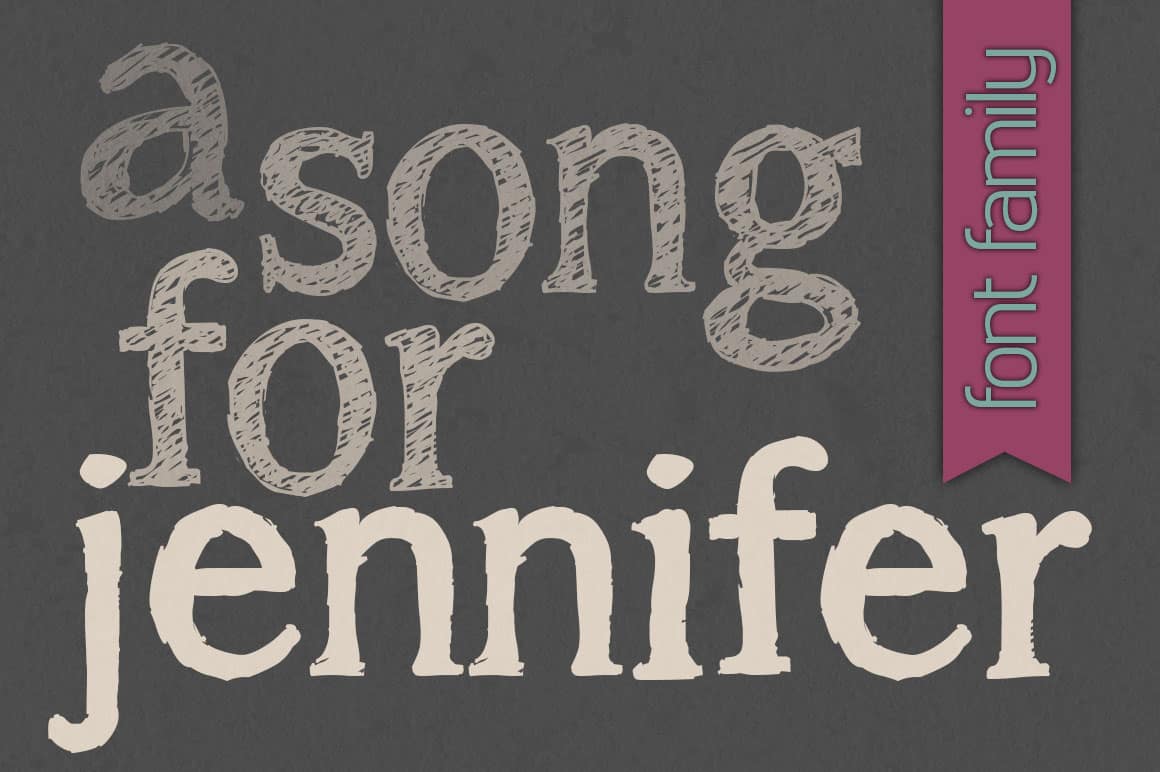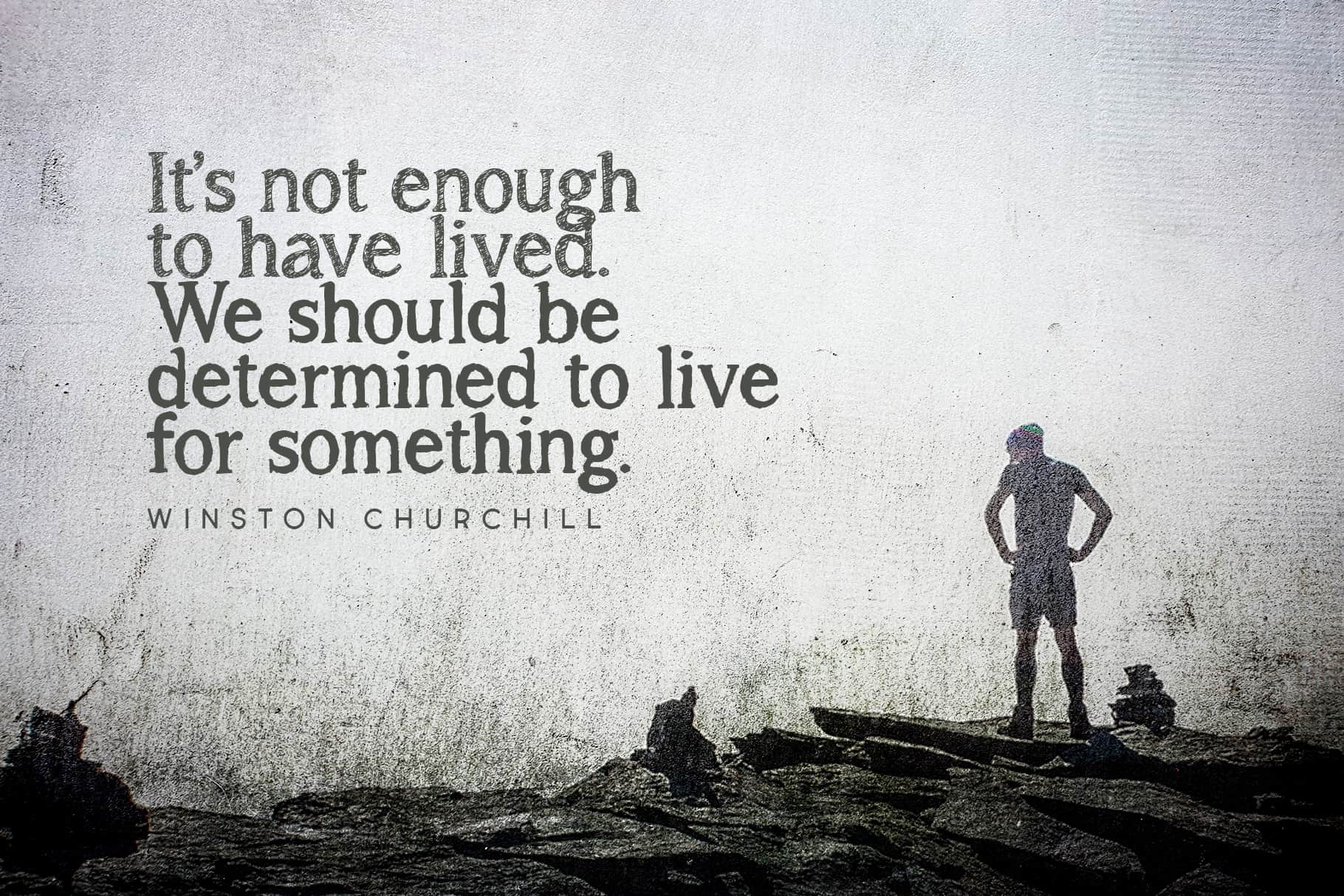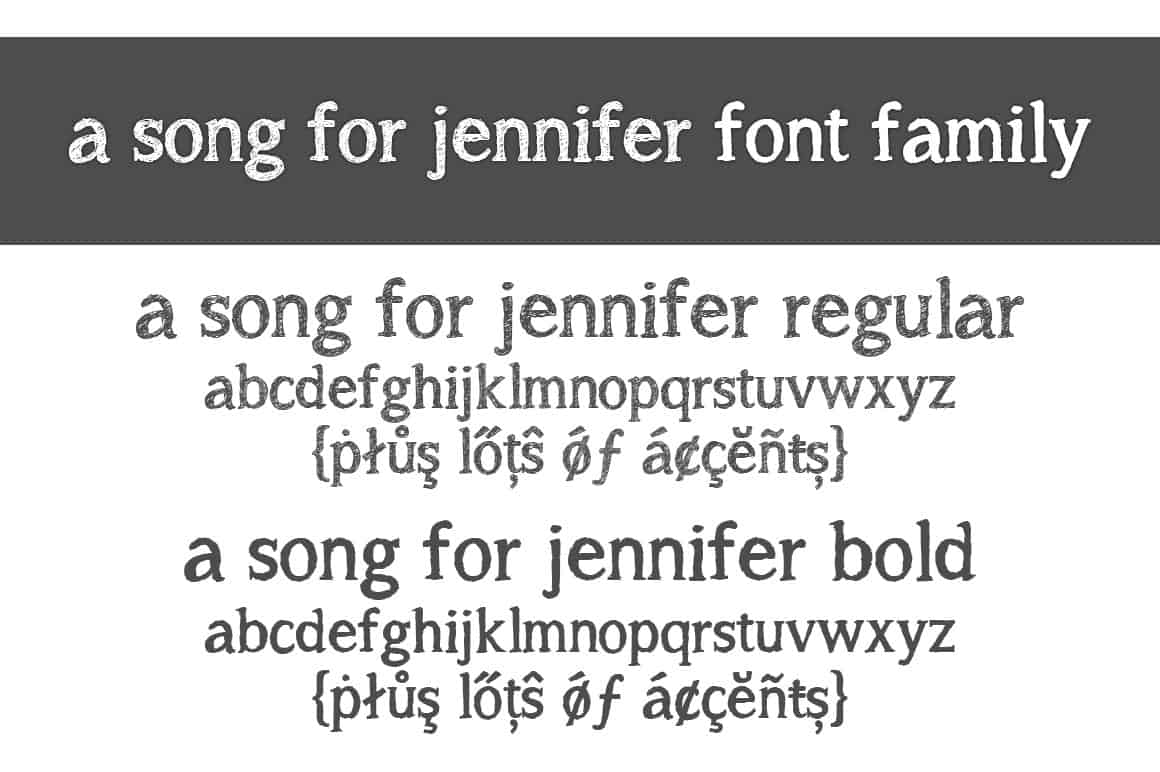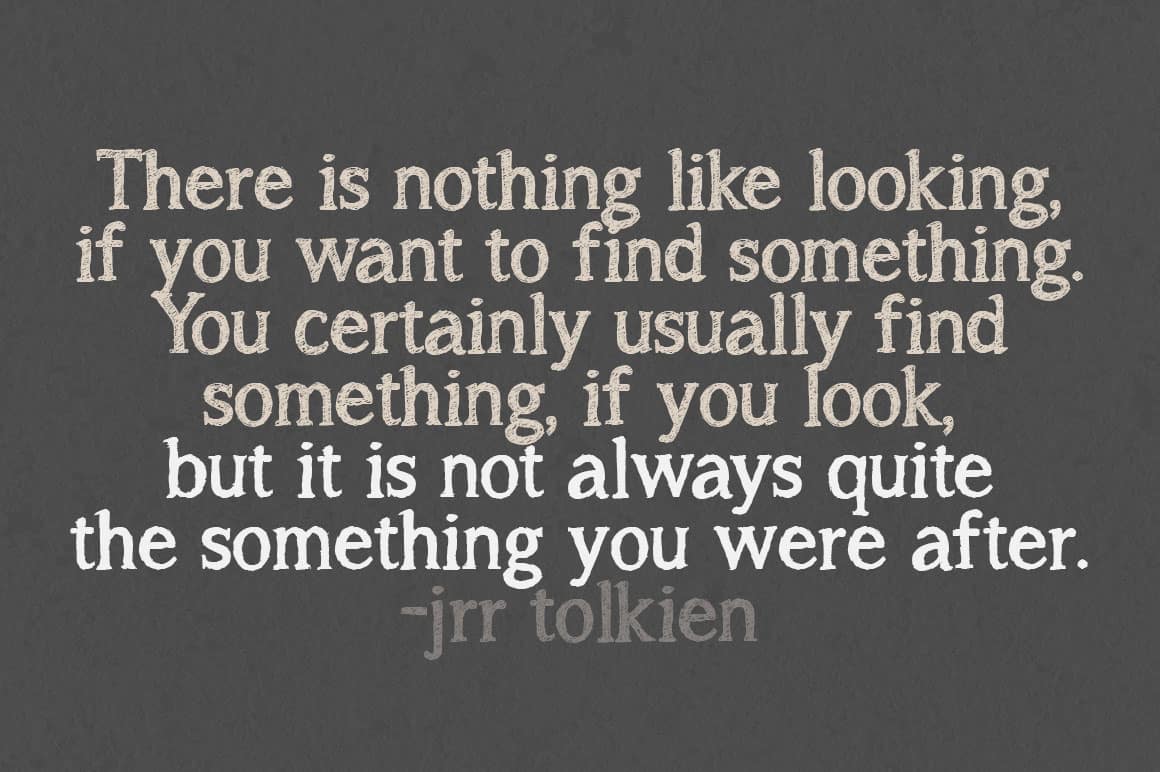
A Song For Jennifer is Brittney’s first go at a sketched font she created in 2011. Featuring 348 glyphs in 2 weights (A bold, solid and a Regular), A Song For Jennifer hand drawn serif font that is a great for adding a home-made touch for your graphic design products, and has support for most Latin based languages.